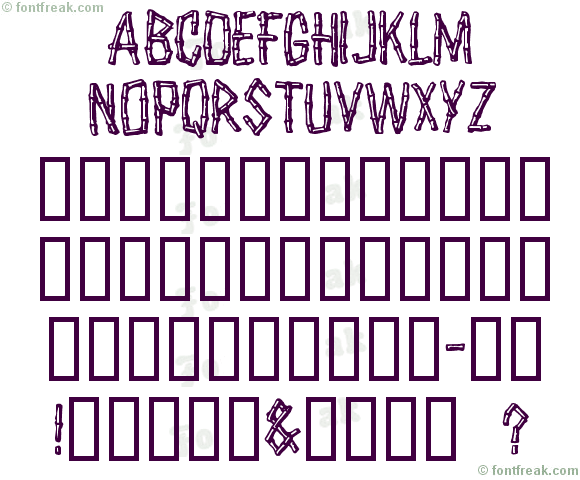
Castaway
About Castaway
The Castaway font, designed by Rotodesign in 1997, is a distinctive display typeface that captures attention with its unique stylization. This font showcases a playful, slightly whimsical character, making it perfect for projects that require a lighthearted touch. Castaway is characterized by its medium stroke weight and moderate contrast, which lend it a bold yet approachable appearance. The letters are spaced with a casual elegance, allowing for easy readability while maintaining a sense of personality. Its decorative elements, including rounded edges and slightly irregular forms, contribute to its charm and make it stand out from more conventional typefaces.
Ideal use cases for the Castaway font include wedding invitations that aim to convey a sense of joy and celebration, movie posters that require a quirky and eye-catching headline, restaurant menus that wish to evoke a fun and casual dining experience, branding for creative businesses looking to establish a memorable identity, and various promotional materials, like flyers and brochures, where a unique font can enhance visual appeal. The target audience for this font includes graphic designers, small business owners, and content creators who are seeking to add a distinctive flair to their work.